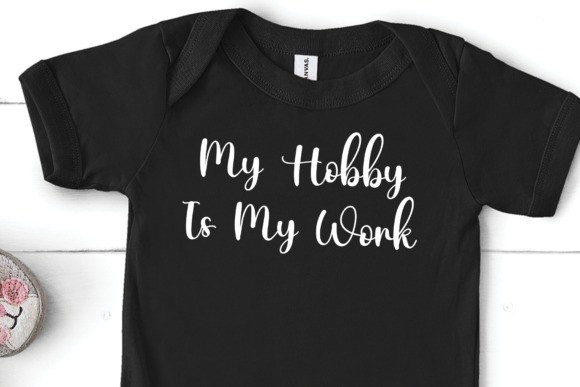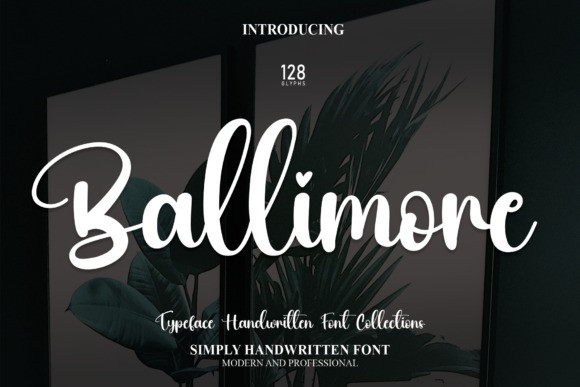
Ballimore Typeface
Ballimore Typeface is a classic and simple handwritten script, created in a random and free style. It is suitable for logotype, headline font, in corporate identity, brand identity, apparel industry, poster, music, movie, game, magazine, book, comic, cartoon, YouTube, Instagram, website, or any of your creative design projects.